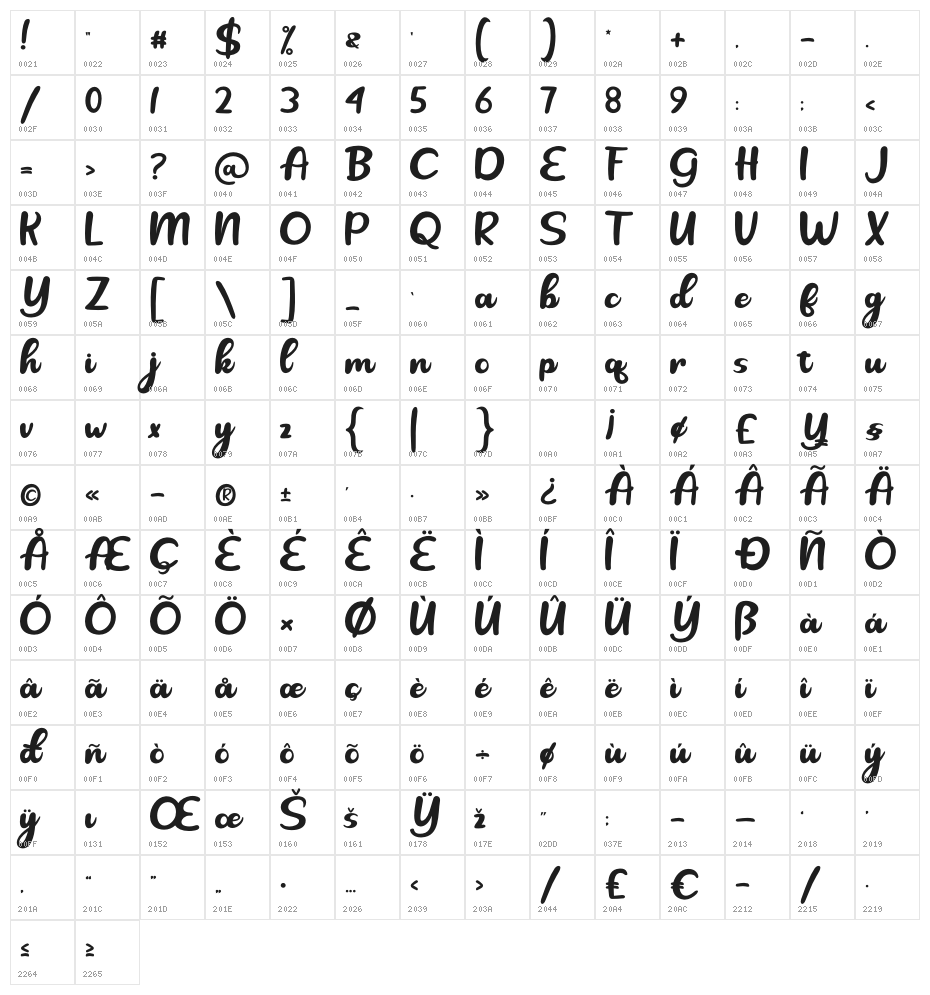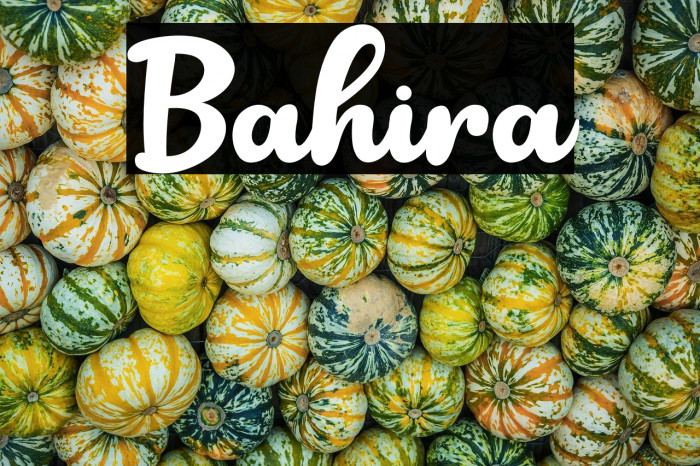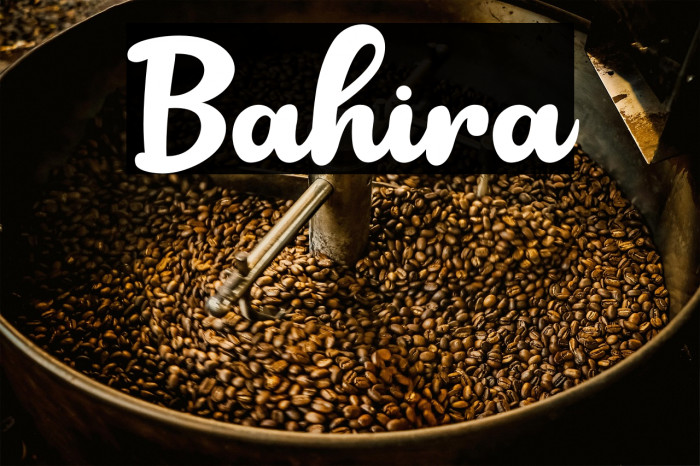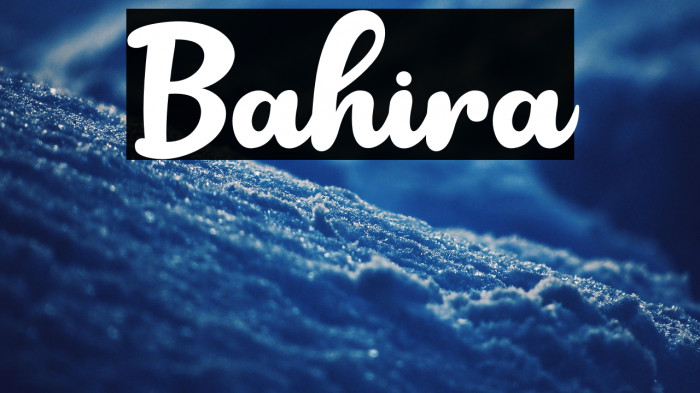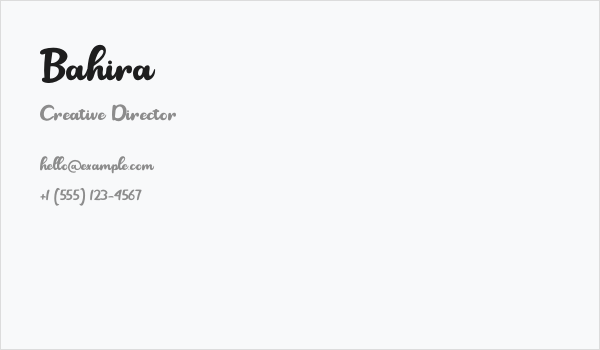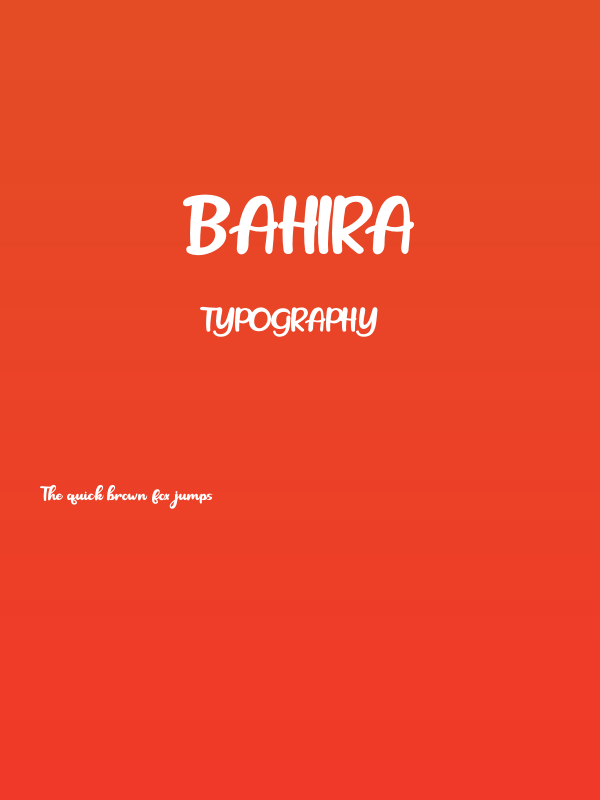
Bahira Font
Bahira Description
This font features a bold and playful script style with a smooth, flowing appearance. The characters are rounded and connected, giving it a handwritten feel. The uppercase letters maintain a consistent height, while the lowercase letters have a slight slant, enhancing the casual and friendly vibe. The numbers are equally bold, ensuring readability. Special characters are designed to match the overall style, making it versatile for various uses. The font's thick strokes and uniform weight contribute to its strong visual impact, making it suitable for attention-grabbing designs.
| Overall Style | Playful, Casual |